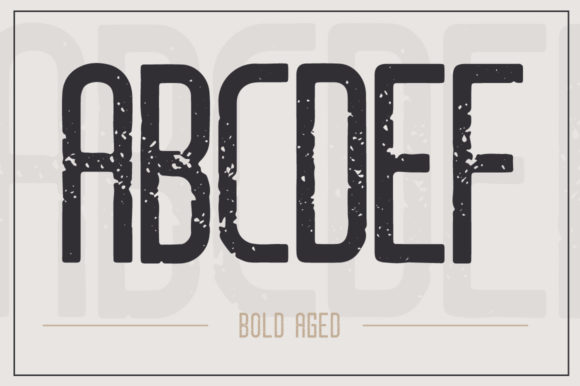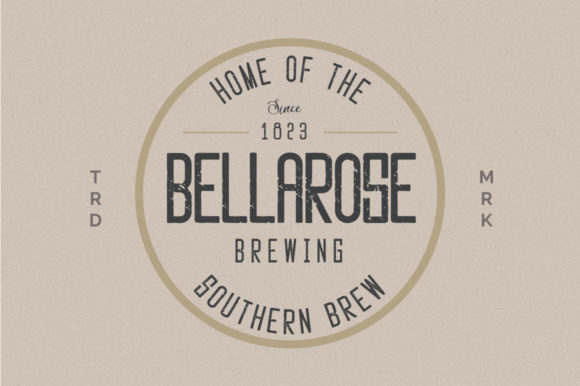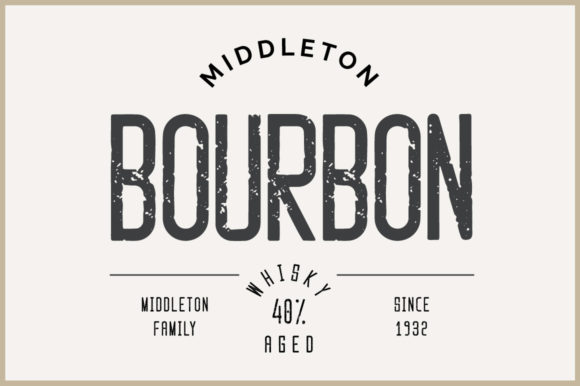
Introduction to Marisole Font
The Marisole is a striking sans serif.
It’s vintage style is perfect for branding, logos, packaging, wedding invitations, blogging and much more .
Marisole Font offers exceptional quality and versatility, making it a valuable addition to your design toolkit. Whether you’re creating for personal projects or commercial use, Marisole Font delivers professional results.